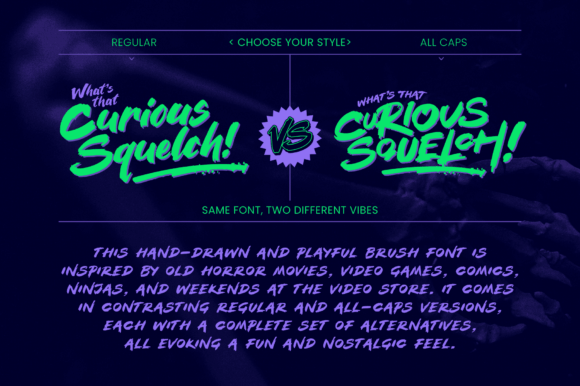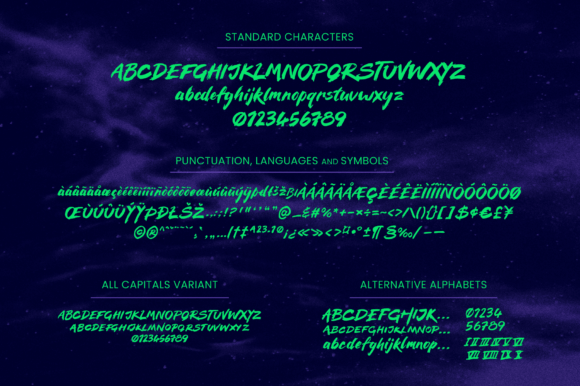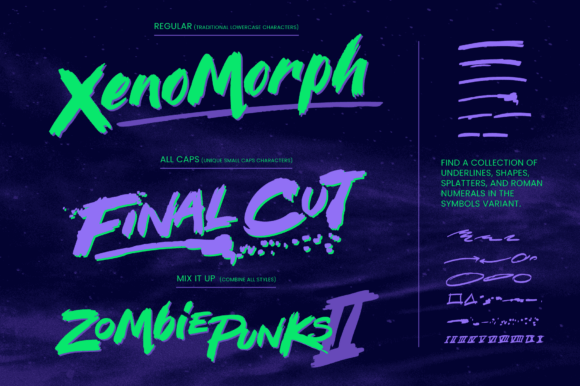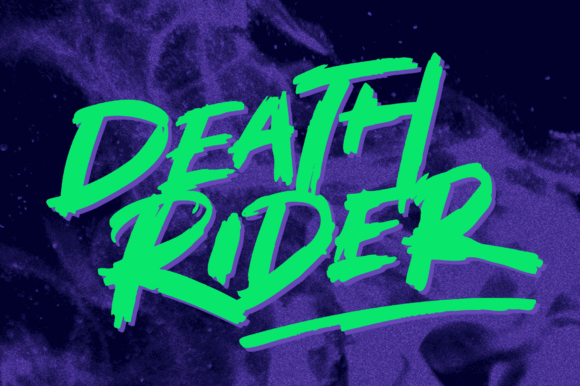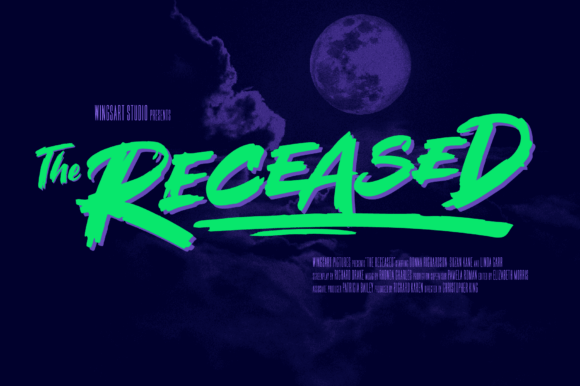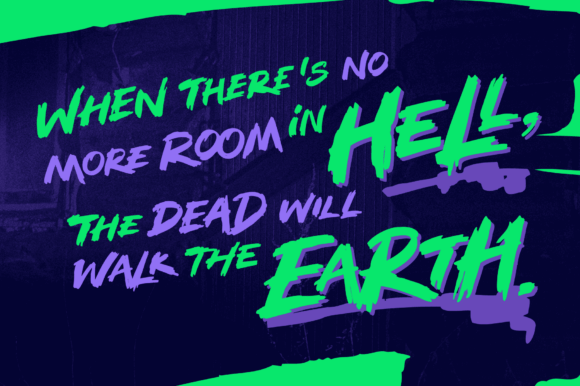
Introduction to Morebrainsregular Font
More Brains is a playful, hand-drawn horror typeface inspired by classic horror films, retro video games, comic books, ninja flicks, and nostalgic weekends spent at the video store.
It’s available in two contrasting versions—Regular and All-Caps—each packed with a full set of stylistic alternates to amplify the fun, vintage vibe While echoing the spirit of my popular Zombie Punks font, More Brains delivers a cleaner, more refined design with a subtle italic slant.
Key Features of Morebrainsregular Font